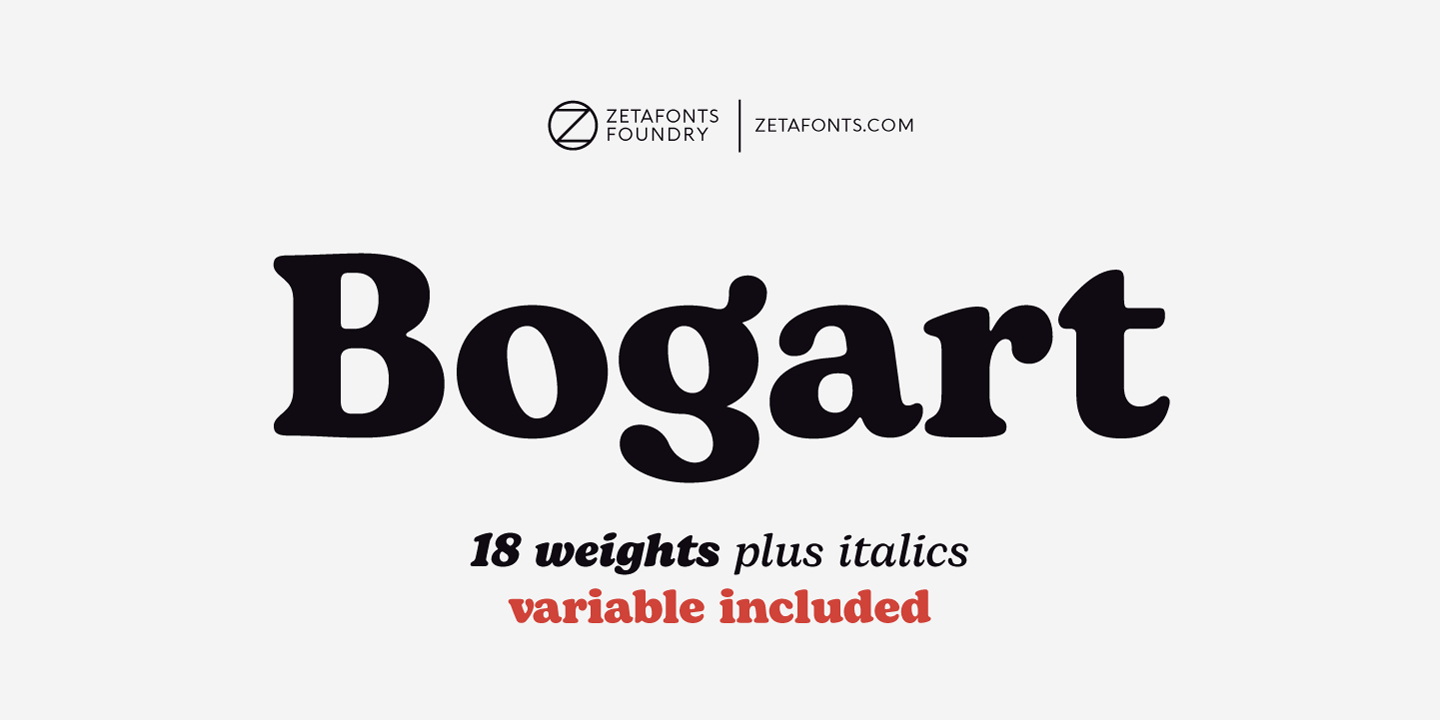
Bogart Font is exceptionally suited for vintage-inspired branding projects, classic movie posters, retro advertising campaigns, sophisticated book covers, elegant wine labels, art deco style designs, luxury hotel branding, and timeless wedding invitations. This distinctive typeface captures the essence of Hollywood's golden age, making it perfect for entertainment industry projects, upscale restaurants, premium fashion brands, and any design requiring classic American elegance.
What makes Bogart Font so exciting is its authentic vintage character that effortlessly evokes the glamour and sophistication of 1940s Hollywood. The font features carefully crafted letterforms inspired by classic cinema typography, with subtle Art Deco influences that create instant recognition and emotional connection. Its elegant proportions and refined details make it incredibly versatile for both modern applications and period-appropriate designs. The font's timeless appeal allows brands to communicate heritage, quality, and sophistication while maintaining contemporary relevance.
Bogart Font typically includes multiple weights and styles such as Regular, Bold, Light, Condensed, and potentially Italic variations. The font family often features additional decorative elements and alternate characters that enhance its vintage appeal. Each weight maintains the font's distinctive character while offering different levels of visual impact, providing designers with comprehensive options for creating cohesive brand identities and sophisticated typographic systems.
Creative professionals will discover that Bogart Font Free Download delivers outstanding performance in both display and text applications. The font's carefully designed OpenType features include extended character sets, stylistic alternates, and special ligatures that enhance creative possibilities. Whether you're designing for luxury brands, entertainment companies, high-end restaurants, or premium product packaging, this font provides the authentic vintage appeal that helps brands stand out with timeless elegance.
The meticulous attention to character spacing and proportions ensures that Bogart Font maintains excellent readability while delivering maximum nostalgic impact. Its classic design language makes it particularly effective for brands wanting to communicate heritage, craftsmanship, and premium quality. The font's sophisticated appearance creates strong brand recognition while remaining highly functional across different design contexts from digital platforms to traditional print media.
For designers seeking a typeface that embodies classic Hollywood glamour with contemporary functionality, Bogart Font Free Download represents an exceptional choice that will elevate any project with its distinctive vintage character and timeless sophistication.